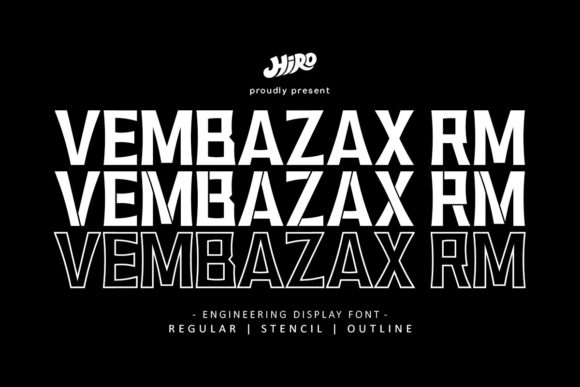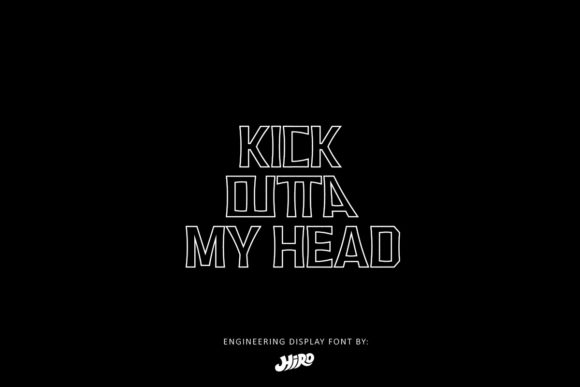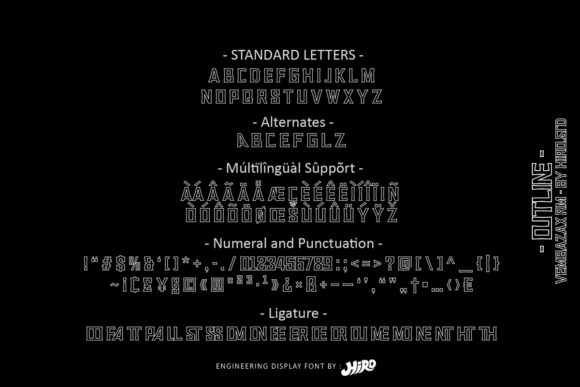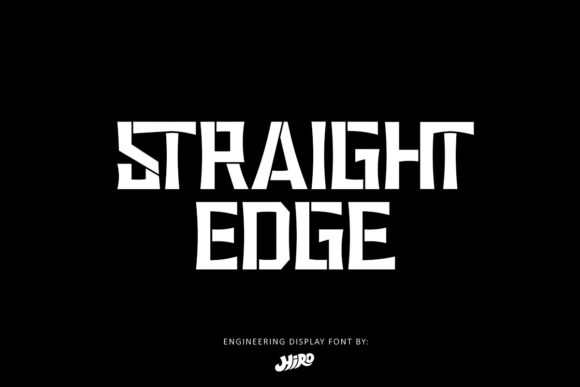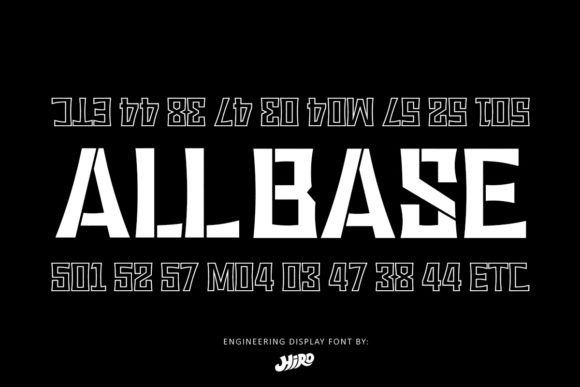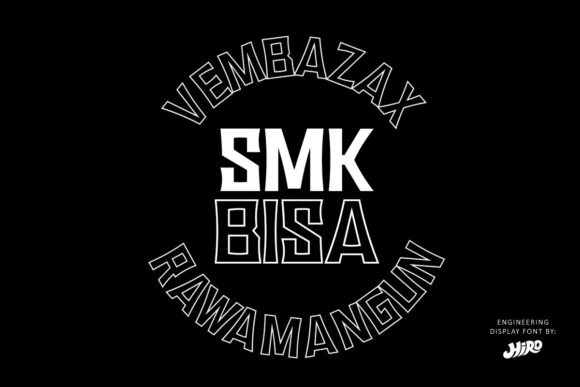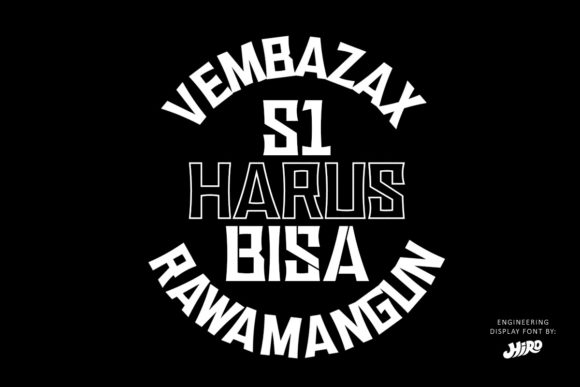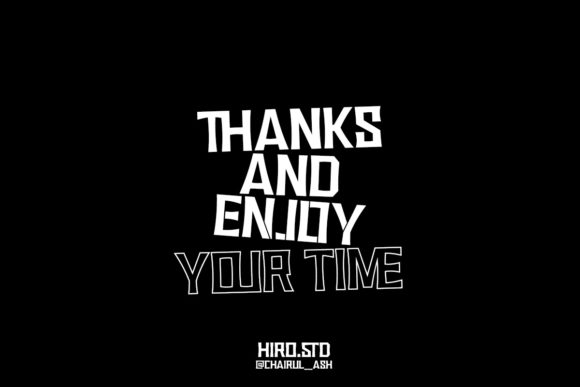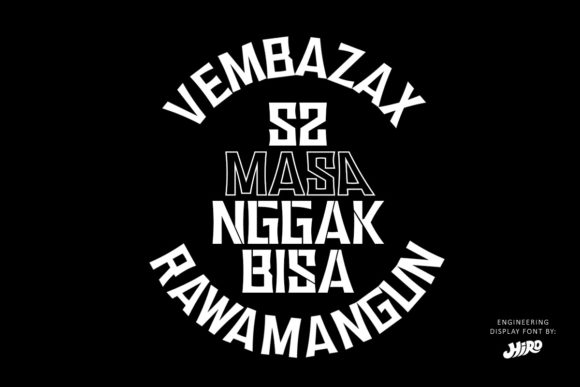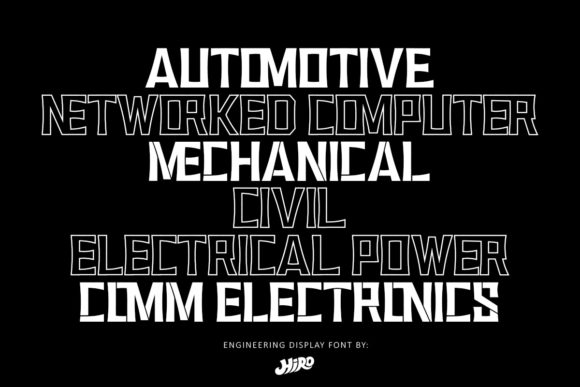
Vembazax Rm
About Vembazax Rm Font
Vembazax Rm is a strong and assertive display font. Add this font to your favorite creative ideas and notice how it makes them come alive!